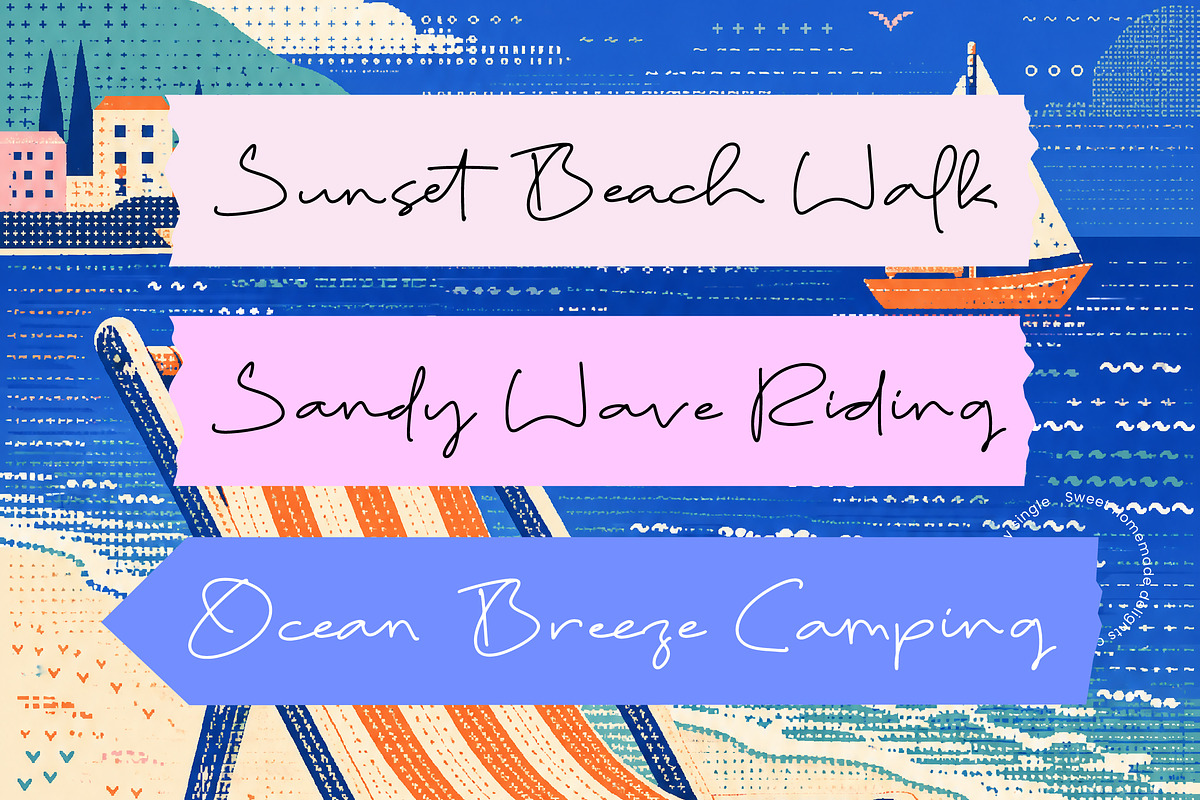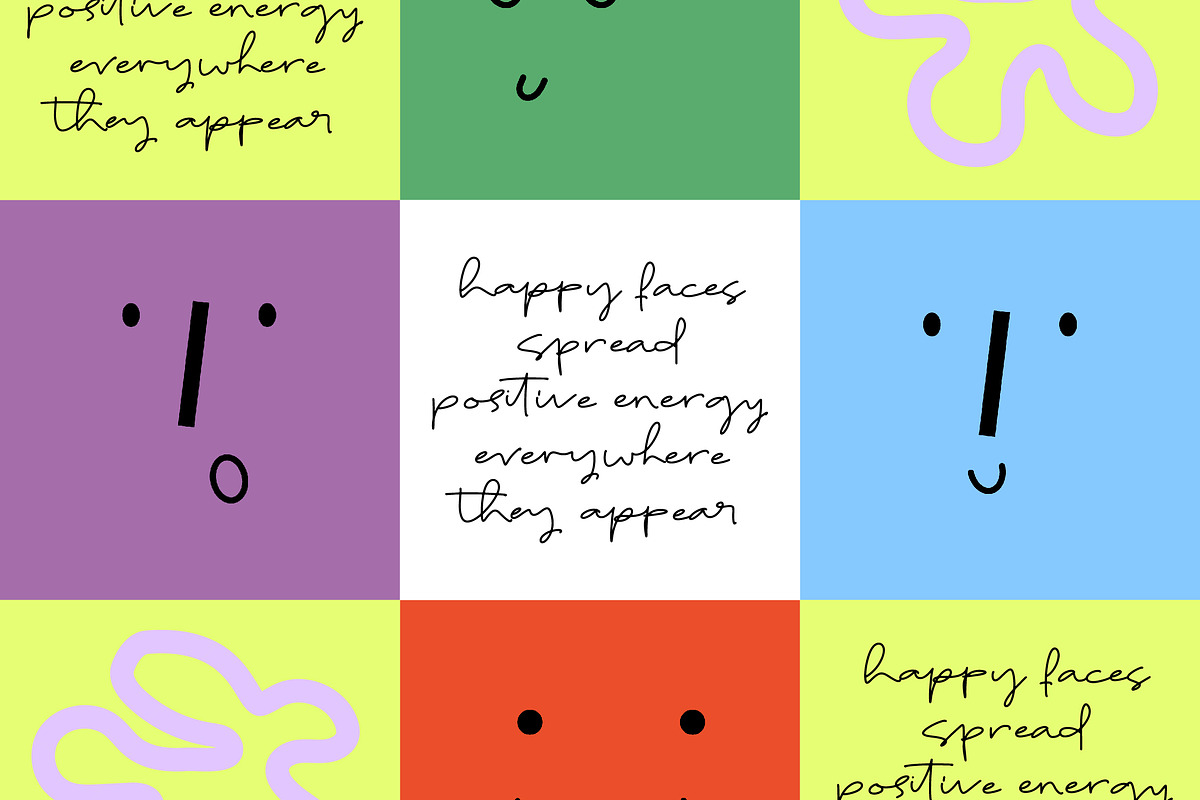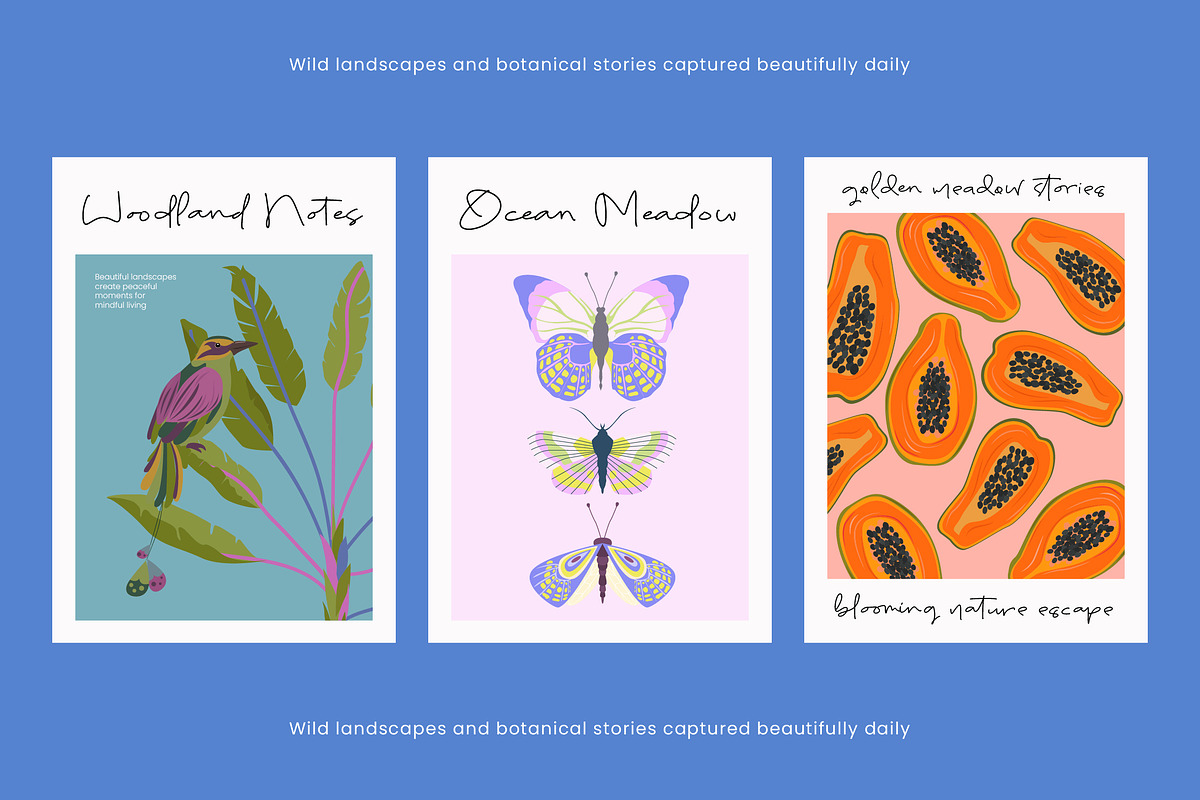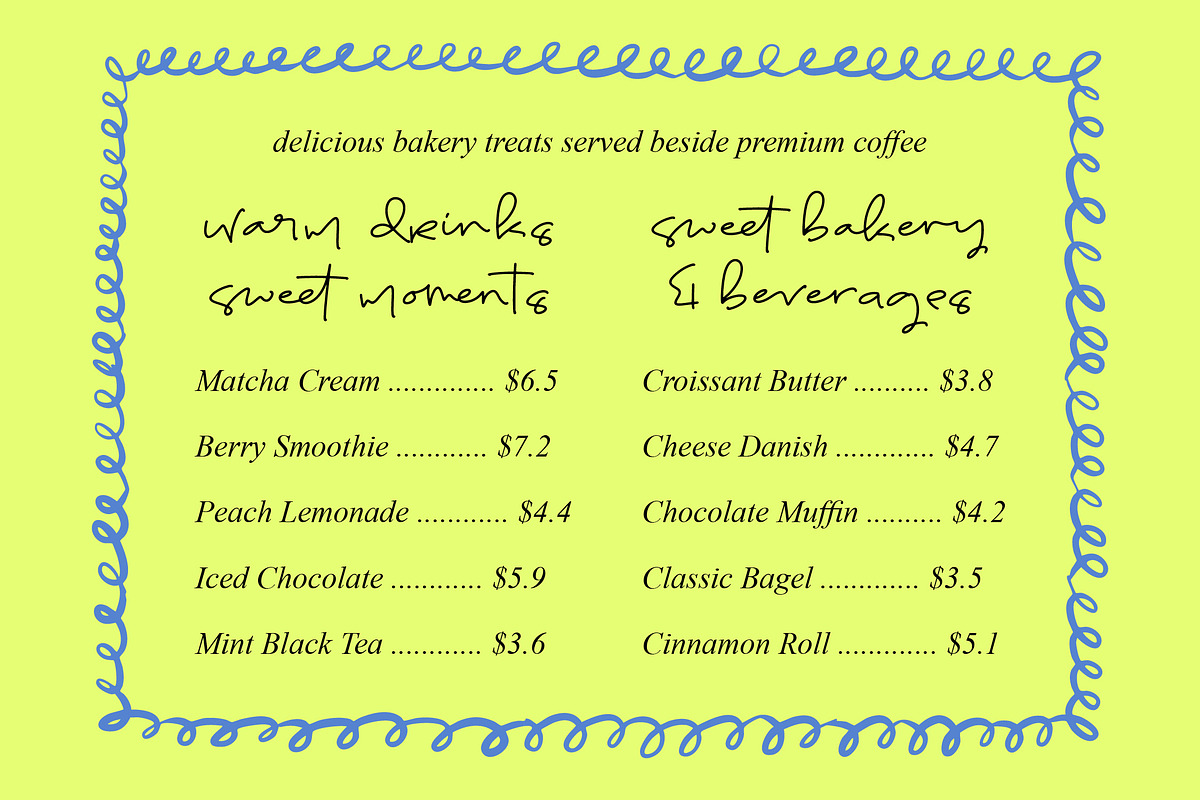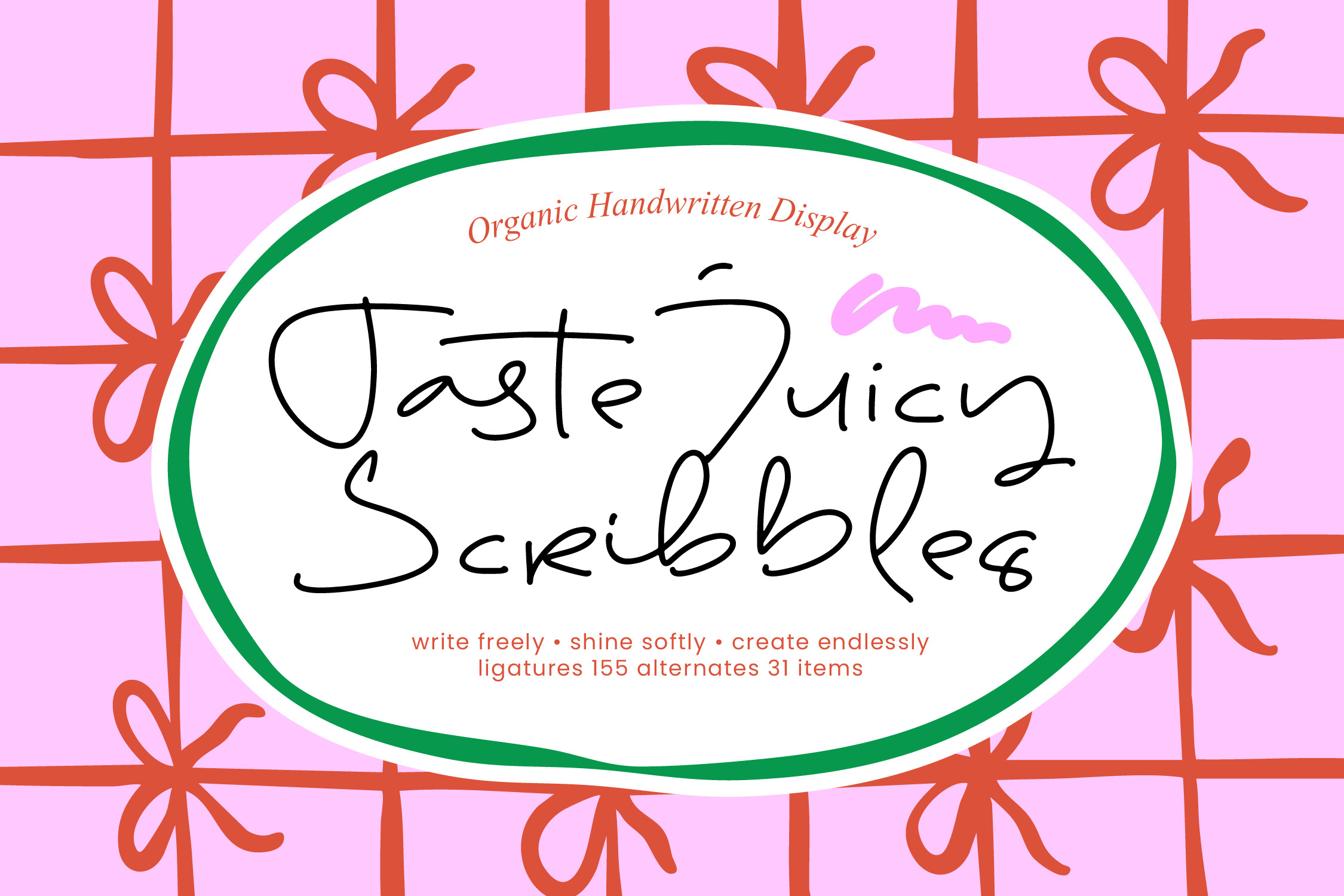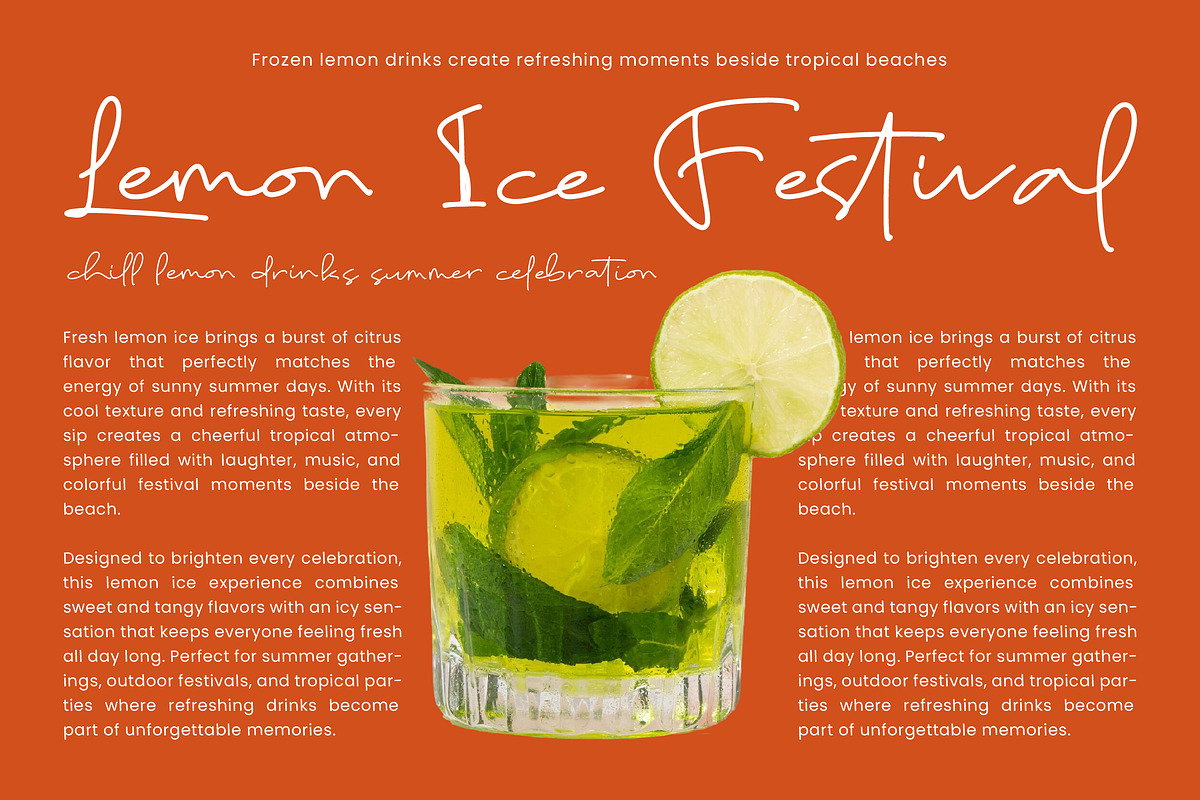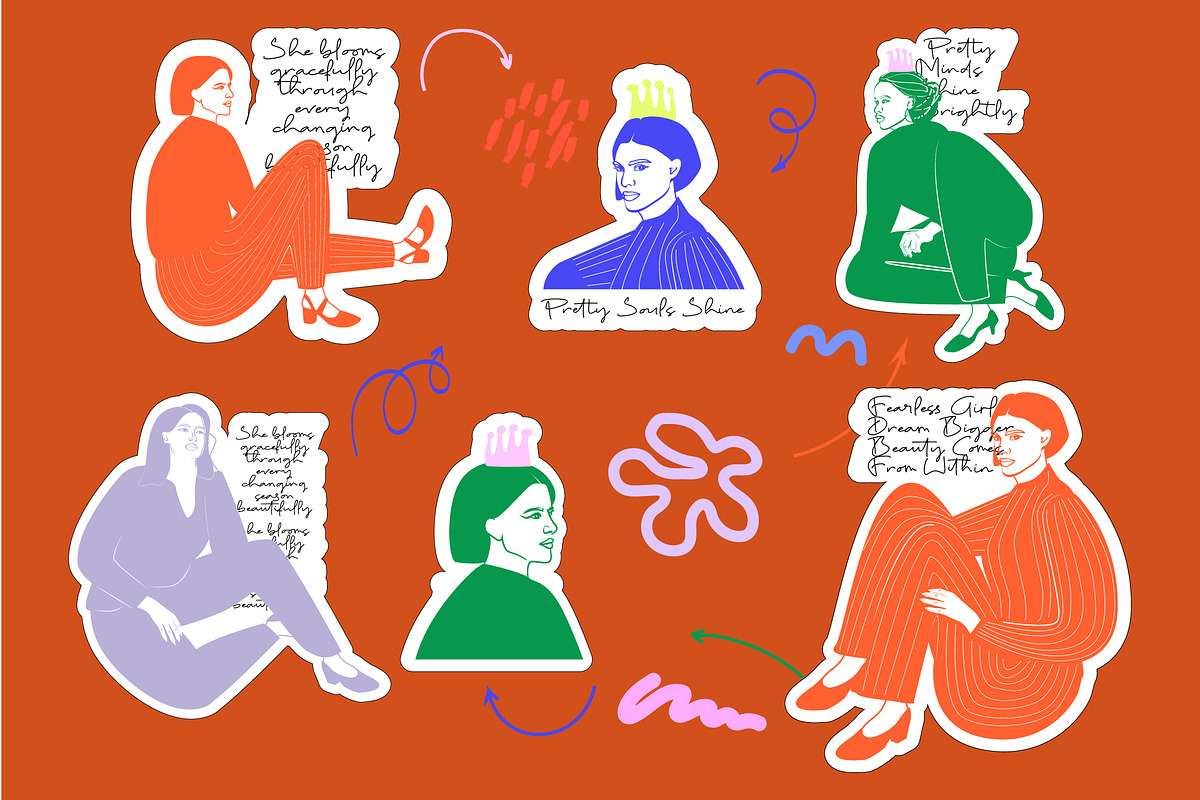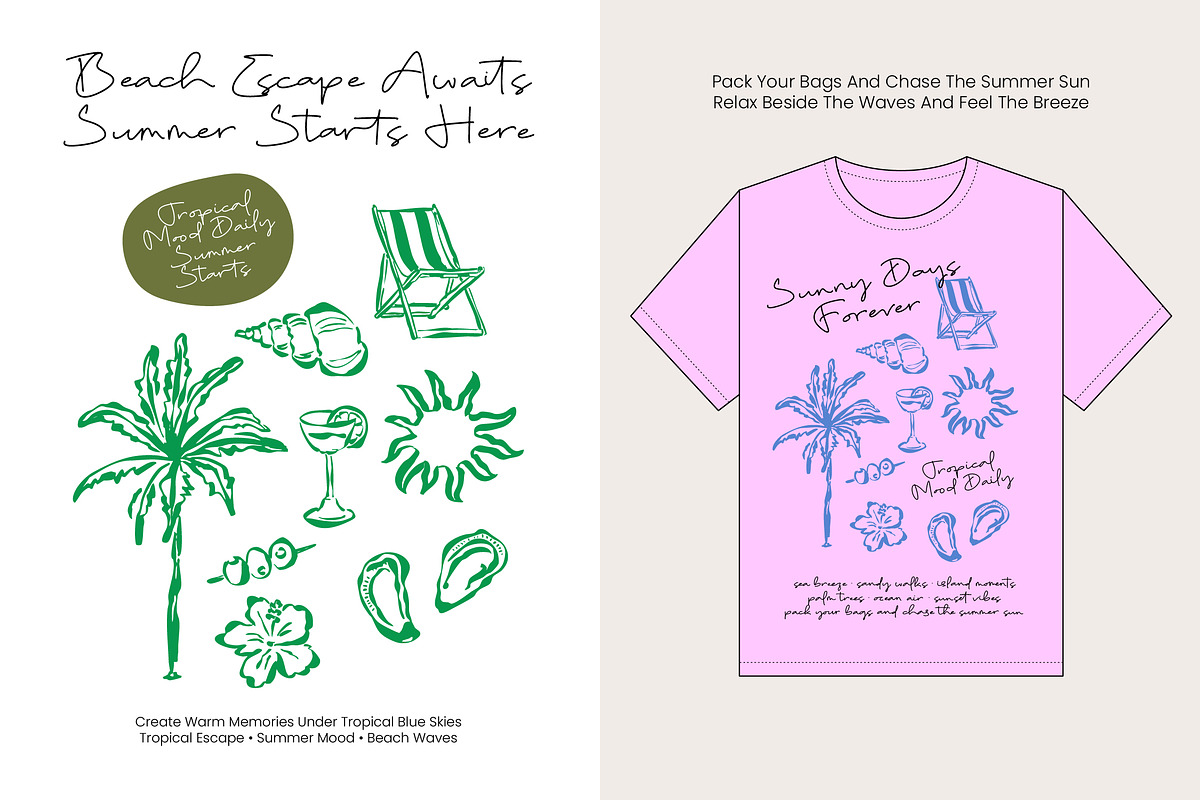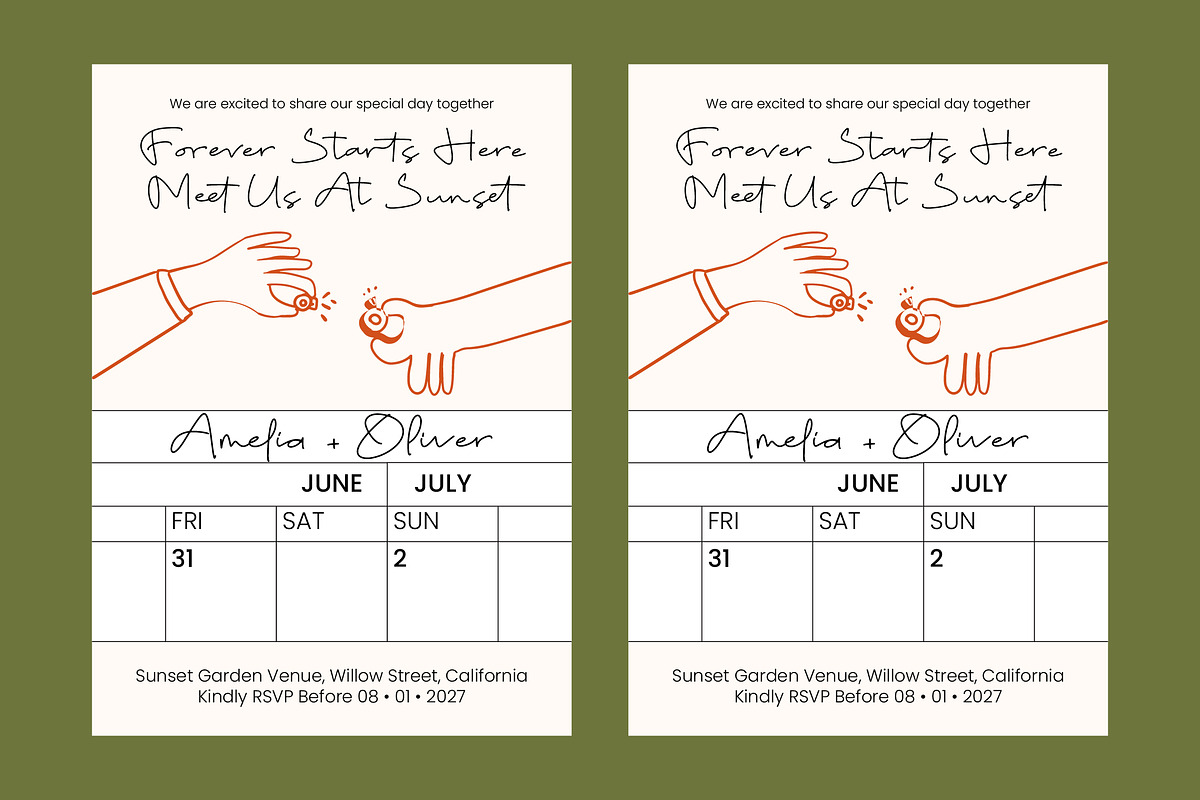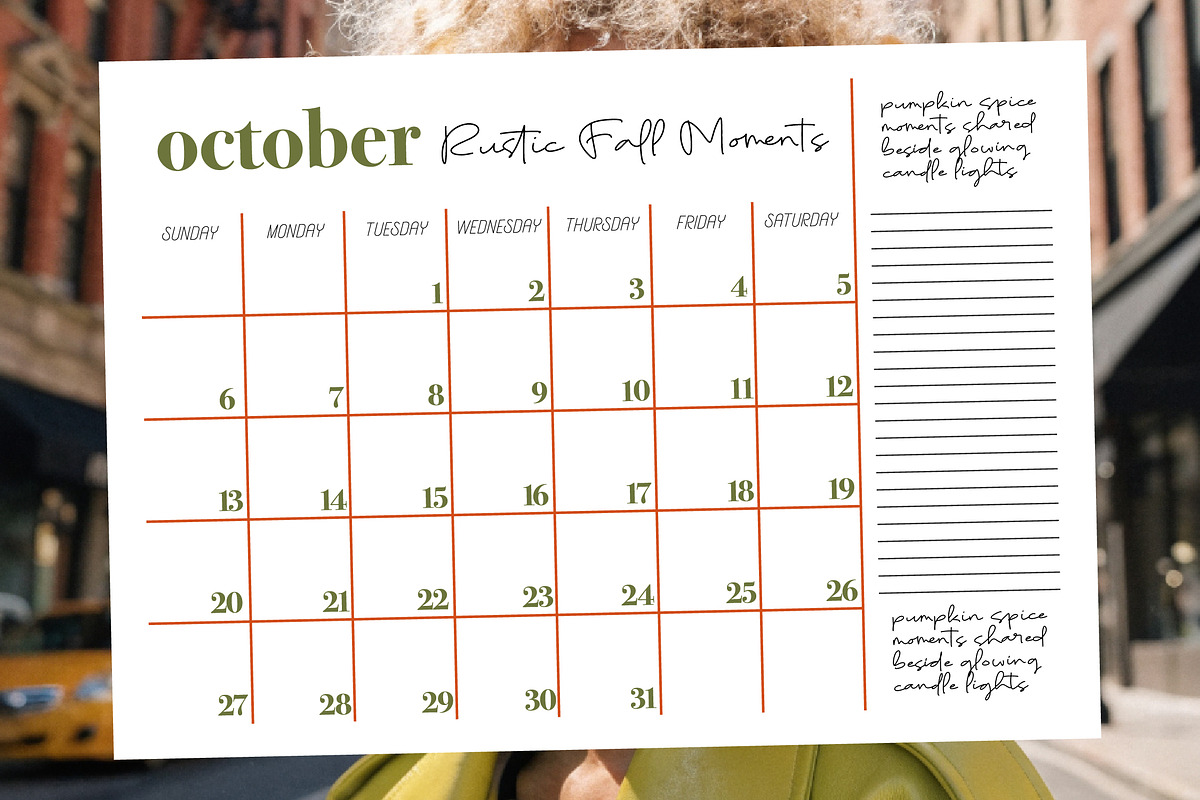
Taste Juicy Scribbles - Organic Font
Taste Juicy Scribbles - Organic Handwritten Display , Elevate your creative projects with an authentic touch that speaks directly to the soul. Taste Juicy Scribbles - Organic Handwritten Display captures the raw, spontaneous energy of ink on paper, offering a playful aesthetic that is both modern and timeless. This organic handwritten display font is meticulously crafted to bring handcrafted charm and a high level of personalization to your visual storytelling, ensuring your message feels intimate and engaging.
Global reach meets a distinct personal connection through professional-grade engineering. With its extensive multilingual support, Taste Juicy Scribbles - Organic Handwritten Display adapts seamlessly across global markets, making it incredibly versatile for international projects. This robust character set ensures that your brand’s personality remains consistent and impactful across different languages, providing a universal appeal that is essential for modern, cross-border digital campaigns.
Master the art of customization with a typeface designed for maximum creative freedom. Taste Juicy Scribbles - Organic Handwritten Display features a comprehensive suite of 155 ligatures and 31 alternates, allowing designers to create a bespoke typographic experience every time. These artistic variations eliminate repetitive patterns, mimicking the natural rhythm of human script and providing a fluid, dynamic look that is ideal for standout headlines and bold display usage.
Transform your brand identity with a font that is perfect for a wide range of high-end applications. This typeface is the ideal choice for luxury packaging, lifestyle branding, and editorial design where a unique visual voice is required. Taste Juicy Scribbles - Organic Handwritten Display is also perfect for social media graphics, bespoke apparel, and modern logo design, delivering the expressive power and commercial edge needed to capture attention in today's competitive landscape.